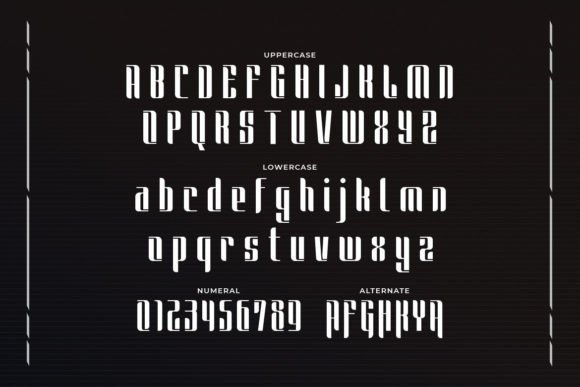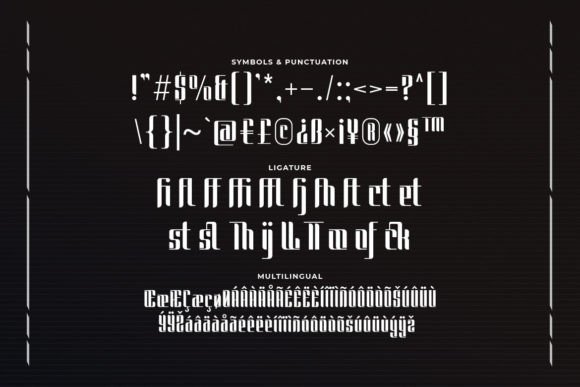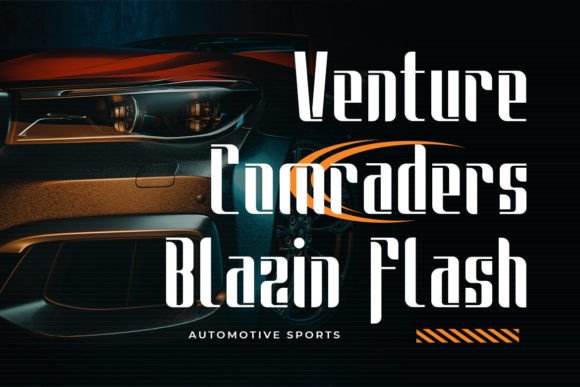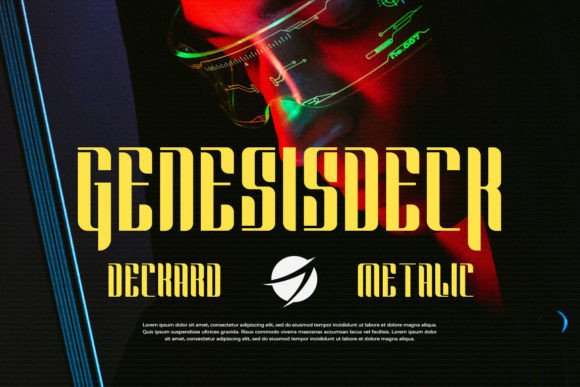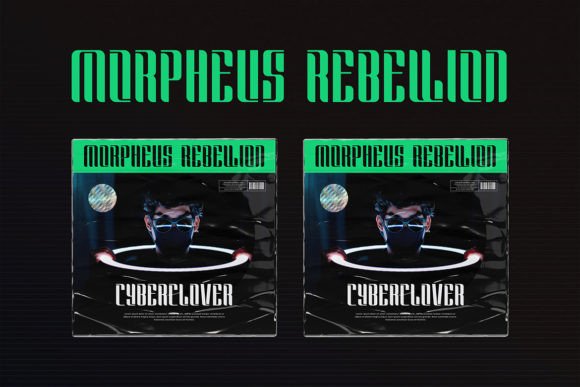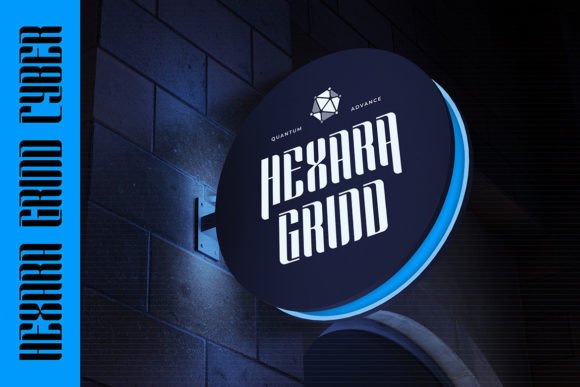
Introduction to Saunders Font
As a designer, you’ve probably had those moments when you’re brainstorming ideas for a new project, and suddenly, a spark of creativity hits you. You envision a bold, eye-catching title that jumps off the page, and you know exactly the font you need to bring it to life. For many designers, that font is the Saunders Font – a unique display font that’s perfect for making a statement in your design projects.
The Saunders Font is a valuable addition to any designer’s toolkit, offering a high-quality, free download that can elevate even the most mundane designs into something truly special. With its transparent background and versatile style, it’s an ideal design resource for everything from product packaging to book covers, titles, banners, and business cards. Whether you’re working on a creative project or just need a little inspiration, the Saunders Font is sure to spark your imagination and help you create something truly unique.
Key Features of Saunders Font
- High-quality, professional font design suitable for various creative projects, including logos, branding, and marketing materials.
- Features a transparent background, allowing for easy integration with various design elements and backgrounds.
- Includes multiple font weights and styles, providing designers with flexibility and options for customizing their creative projects.
- Designed to be highly legible and visually appealing, making it an excellent choice for a wide range of design applications.
Honest Review: Saunders Font
I recently stumbled upon the Saunders Font, a design resource that has been gaining popularity among creatives. As a designer, I was excited to dive in and see if it lives up to the hype. Overall, I was pleasantly surprised by the quality and versatility of this font.
- High Quality**: The Saunders Font is crisp, clean, and well-designed, making it perfect for any creative project.
- Transparent Background**: The transparent background option allows for seamless integration into any design, giving me more creative freedom.
- Limited Customization Options**: While the font is well-designed, it’s not particularly unique, and customization options are limited.
- Not Ideal for Headlines**: The font is more suited for body text, as it can get lost in larger font sizes.
Overall, I’m impressed with the Saunders Font as a design resource. It’s a solid choice for any creative project, especially those on a budget. While it may not be perfect, it’s a great addition to any designer’s toolkit.
Tips for Getting the Most Out of Saunders Font
Use the Saunders Font in conjunction with a transparent background for a clean and modern look. Experiment with different font sizes and colors to add emphasis and visual interest to your design. Consider combining the Saunders Font with other design resources, such as graphics and images, to create a unique and engaging visual identity.
Common Use Cases for Saunders Font
The Saunders Font is a versatile design resource that can be used in a variety of creative projects, including:
– Social media graphics and advertisements
– Logos and branding materials
– Posters and flyers
– Presentations and reports
– Business cards and marketing materials